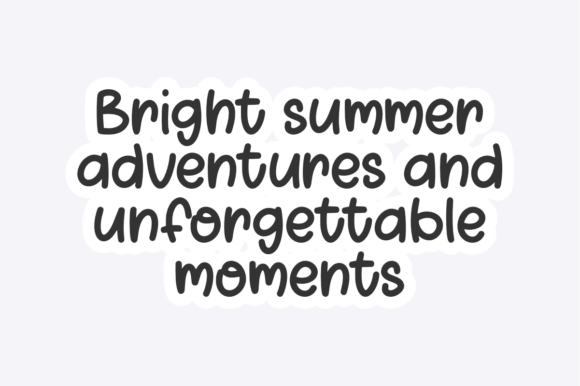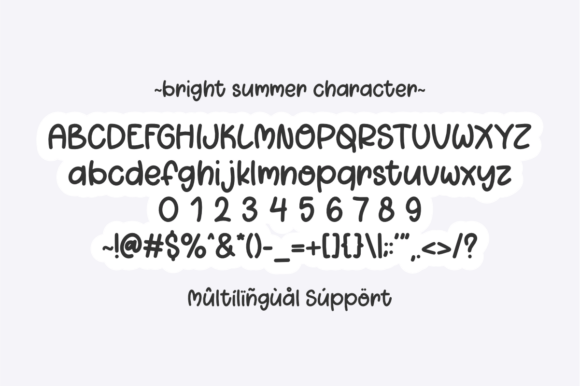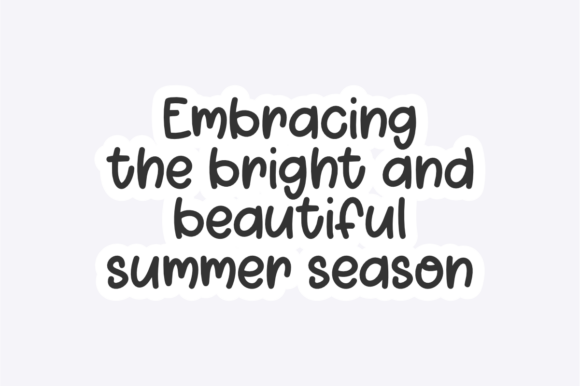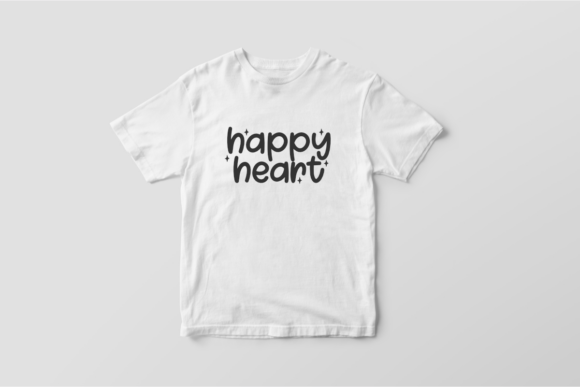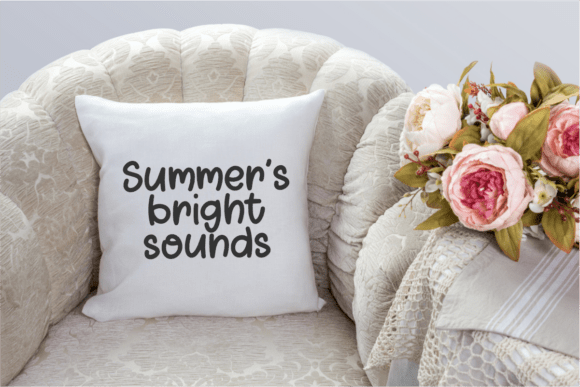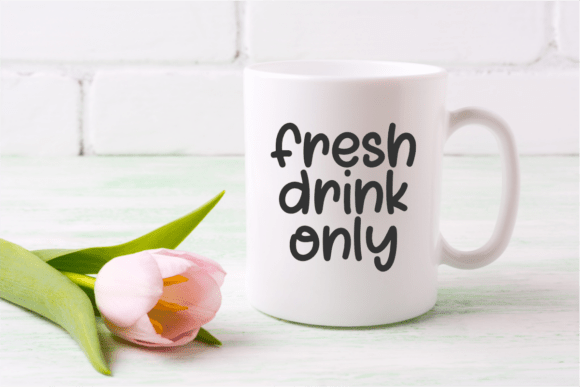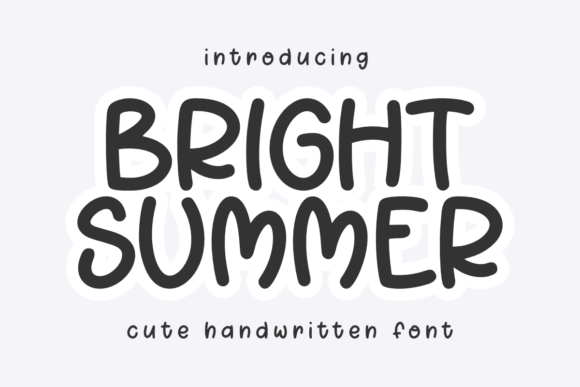
Unleashing Your Creativity with Bright Summer Font
Do you ever find yourself rummaging through your craft supplies, searching for the perfect font to match the sunny vibes of your DIY project? I know I do! There’s something about the feeling of creating something with your own hands that just makes my heart skip a beat. Whether I’m planning a party, making a card for a loved one, or simply journaling my thoughts, I always seem to come back to one thing: the right font.
That’s why I’m so excited to share with you the Bright Summer Font, a delightful handwritten font that’s perfect for all your creative endeavors. From planners to stickers, cards to quotes, this font is the perfect addition to any craft project. And, as a bonus, it’s especially loved by creative moms who adore DIY, journaling, and Cricut crafts. The Bright Summer Font is a valuable resource for designers, offering a unique and playful touch to any design.
Bright Summer Font Key Features
- Font Family: Bright Summer Font is a unique and playful sans-serif font designed for digital and print use.
- Unique Characteristics: Features a distinctive rounded shape, with subtle rounded corners and a friendly, approachable feel, making it perfect for branding and advertising projects.
Bright Summer Font Review
As a designer, I was excited to dive into the Bright Summer Font, a cheerful and vibrant typeface perfect for summer-themed projects. Here’s my honest take on this font.
- The font’s playful, carefree vibe is perfect for capturing the essence of summer.
- The bold and italic weights add a nice level of versatility to the font.
- The font’s open, airy feel makes it ideal for use in headings and titles.
- The font may be too playful for more serious or formal projects.
- The lack of ligatures and swashes may limit the font’s use in more complex typography.
- The font’s uppercase letters may be too rounded for use in headlines or titles.
While the Bright Summer Font is a great choice for summer-themed projects, it may not be the best fit for more serious or formal designs. Its playful, open feel makes it perfect for projects that need a fun and carefree vibe. Overall, I’d give it 3.5 out of 5 stars.
The Bright Summer Font is ideal for use in:
- Summer-themed designs and promotions.
- Outdoor and travel-related projects.
- Wedding and event invitations.
To get the most out of the Bright Summer Font, try the following:
- Pair it with bright and pastel colors to create a fun and playful look.